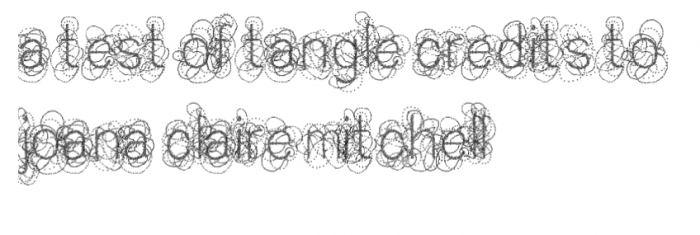
AWESOME WORK ! ! ! AWESOME WORK ! ! !
Letters with razor wire. Cool! 10/10
Great fun - excellent design 10/10
incredible!
Awesome work!
If it only had an uppercase
I made tangle using lowercase as the letterforms are 'looser' than uppercase, but i do want to work on an uppercase too, maybe in april...
Thanks, its not too complicated, just very time consuming....I basically sketched out an elongated version of helvetica on tracing paper and had it pinned to my screen, then used the quarter circles to make up the character and filled in using the different circle bricks. I then created all of the tangles using the same combination of bricks, placed in a way that would give the perception of curved lines.
You have a talent in FontStruct! Amazing, just simply amazing.
Amazing!! very well done.
Nice... feel like writing 'fishing box nightmare' in it!